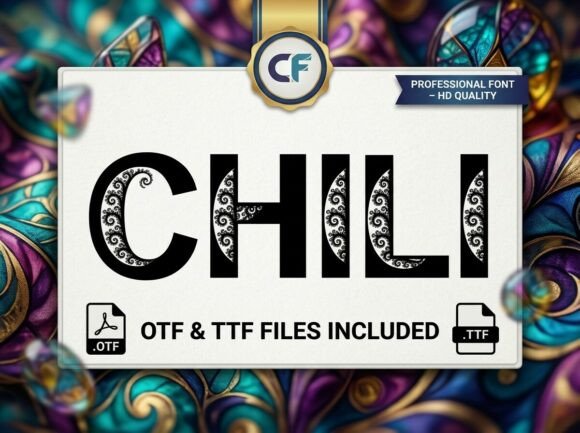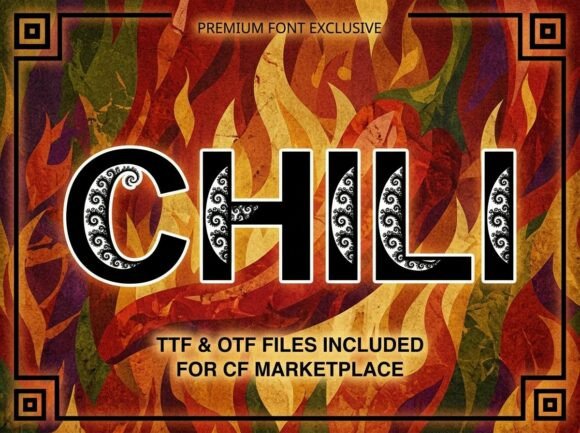
Turn Up the Heat with Chili: The Fiery Display Typeface
Are you looking for a font that can add a spark to your designs? Look no further than Chili, a bold and vibrant display typeface that’s sure to ignite your creative projects. With its unique blend of heavy structural weight and rhythmic, hand-drawn fractal swirl patterns, Chili is the perfect choice for designers and crafters who want to make a statement.
The Inspiration Behind Chili
Chili is more than just a font – it’s an experience. Inspired by the curling wisps of smoke and the intense energy of a flame, Chili captures the essence of a “hypnotic-and-intense” soul. The font’s bold, solid letterforms are uniquely filled with a rhythmic, hand-drawn fractal swirl pattern that adds a level of depth and visual interest to any design.
Perfect for High-Impact Designs
Chili is designed to make an impact. With its heavy structural weight and vibrant personality, it’s the premier choice for independent hot sauce branding, spicy culinary identities, high-energy event posters, and high-impact “bold-and-blazing” social media headers. Whether you’re looking to add a touch of heat to your packaging, advertising, or digital marketing materials, Chili is the perfect font for the job.
Key Features of Chili
- Bold and Solid Letterforms: Chili’s letterforms are designed to stand out, with a bold and solid structure that’s perfect for making a statement.
- Rhythmic, Hand-Drawn Fractal Swirl Patterns: The font’s unique fractal swirl patterns add a level of depth and visual interest to any design.
- High-Impact Visibility: Chili is designed to be seen, making it perfect for high-energy event posters, social media headers, and other applications where you want to grab attention.
- Vibrant Personality: Chili has a personality that’s hard to ignore – it’s perfect for brands and designers who want to add a touch of heat to their designs.
Using Chili in Your Designs
Chili is a versatile font that can be used in a variety of design applications. Here are a few ideas to get you started:
- Independent Hot Sauce Branding: Add a touch of heat to your hot sauce packaging and branding with Chili.
- Spicy Culinary Identities: Use Chili to create a bold and eye-catching identity for your restaurant, food truck, or culinary brand.
- High-Energy Event Posters: Create eye-catching event posters that grab attention with Chili.
- Social Media Headers: Use Chili to create high-impact social media headers that stand out from the crowd.
Why Choose Chili?
So why choose Chili over other fonts? Here are just a few reasons:
- Unique and Memorable: Chili is a one-of-a-kind font that’s sure to make your designs stand out.
- High-Impact Visibility: Chili is designed to be seen, making it perfect for applications where you want to grab attention.
- Vibrant Personality: Chili has a personality that’s hard to ignore – it’s perfect for brands and designers who want to add a touch of heat to their designs.
- Versatile: Chili can be used in a variety of design applications, from packaging and advertising to digital marketing and social media.
If you’re looking for a font that can add a spark to your designs, look no further than Chili. With its unique blend of bold and solid letterforms, rhythmic fractal swirl patterns, and vibrant personality, Chili is the perfect choice for designers and crafters who want to make a statement. Whether you’re looking to create independent hot sauce branding, spicy culinary identities, high-energy event posters, or high-impact social media headers, Chili is the premier choice. So why wait? Turn up the heat with Chili today!